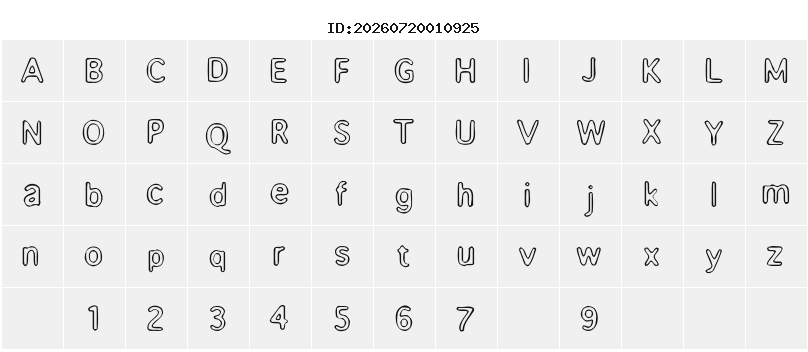
Enemafont Preview
About Enemafont.ttf
Enemafont.ttf is a modern, elegant sans-serif font designed for ultimate readability and visual harmony. Perfect for branding, headlines, web design, and print materials.